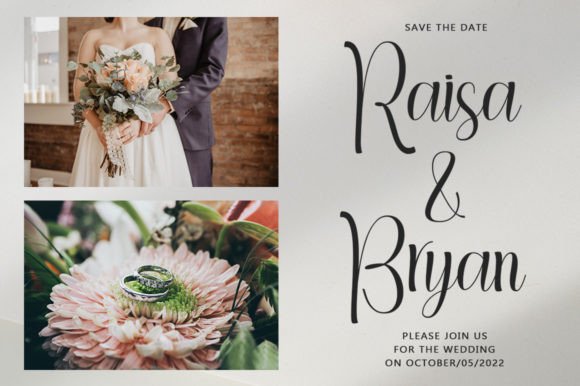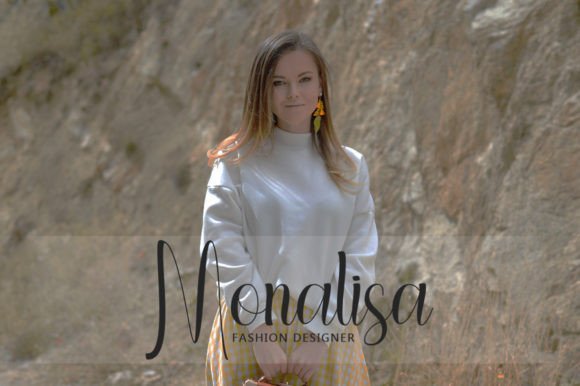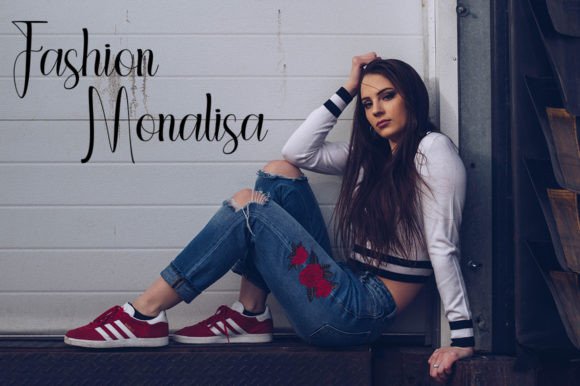
About Married Font
Married is a dazzling and detailed script font. Add this romantic and lovely-looking font to any of your favorite love letters, wedding invitations, or design ideas, and you will be amazed by the results!